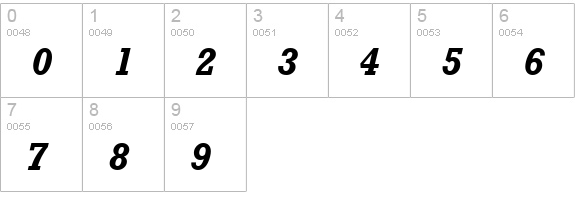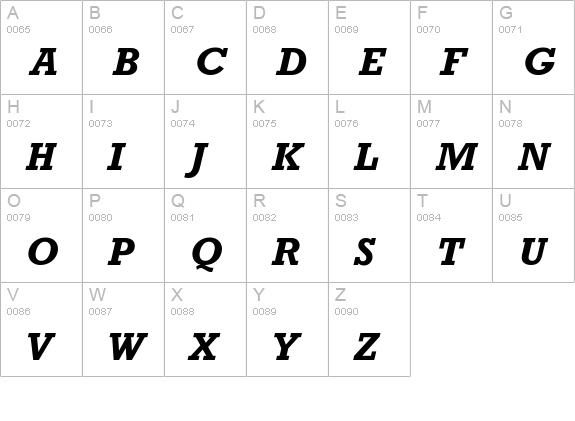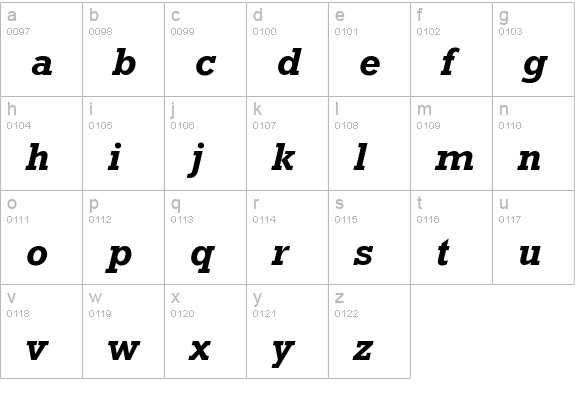
Astute SSi Bold Italic is a strong, high-contrast, italic variant in the Astute typeface family \xE2\x80\x94 well suited to headlines, attention-grabbing titles, and strong calls-to-action.
Astute SSi Bold Italic font exudes a sense of sophistication and intelligence with its sleek design and sharp angles. The bold weight of this typeface commands attention, while the italicized style adds a touch of elegance and flair. Perfect for conveying a sense of authority and confidence, Astute SSi Bold Italic is a versatile font that can be used for a wide range of design projects. What's even better is that this exceptional font is available for free download at FontsMarket.com! Whether you're working on a professional presentation, creating eye-catching marketing materials, or designing a striking logo, Astute SSi Bold Italic is sure to make a bold statement. Download it today and elevate your designs with this powerful and stylish font.